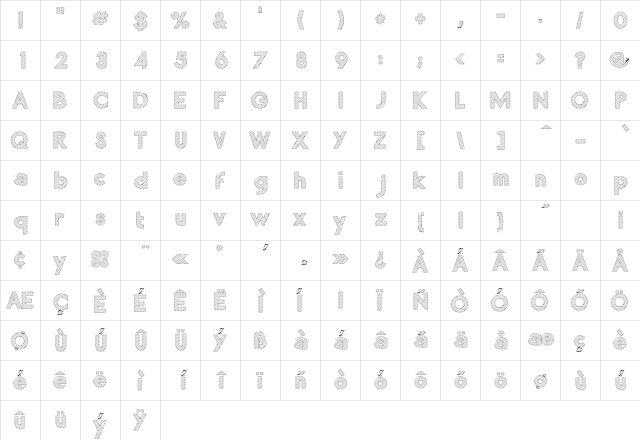
Malabars 2 Regular
Design Context for Malabars 2
Malabars 2 is a composed and adaptable typeface that performs quietly and consistently across a wide range of design contexts.